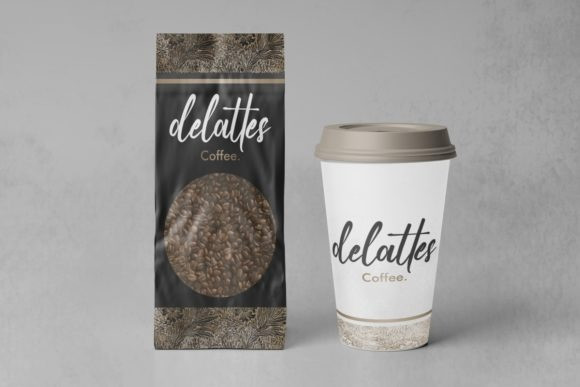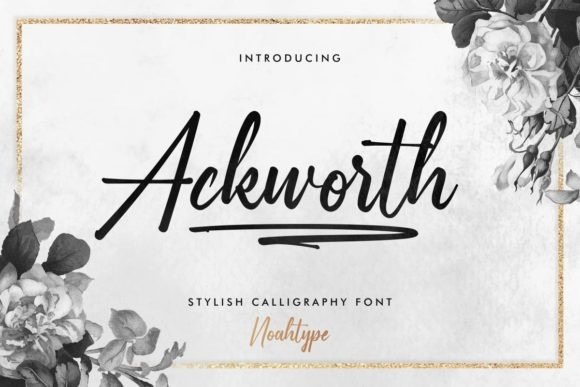
Ackworth Font
Ackworth is a bold calligraphy font script with sophisticated characters, stylish swashes and gorgeous alternates. This free flowing font is perfect for invitation calligraphy, luxury branding, fashion promotions, song tittles, and many more. This font is PUA encoded which means you can access all of the glyphs and swashes with ease!